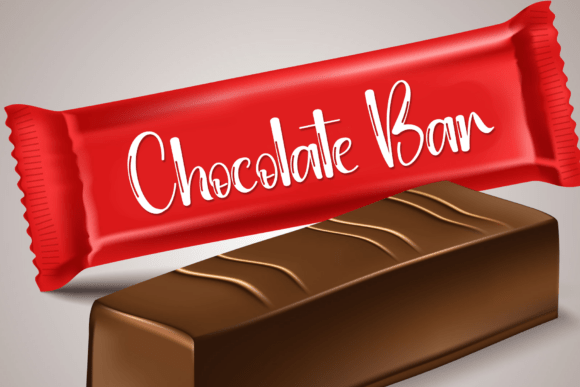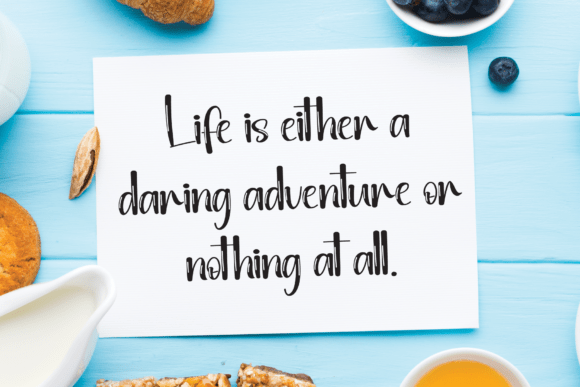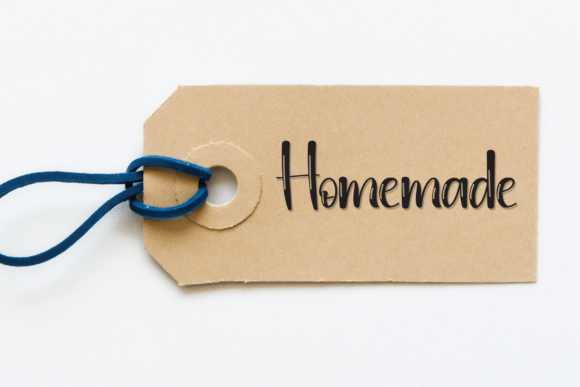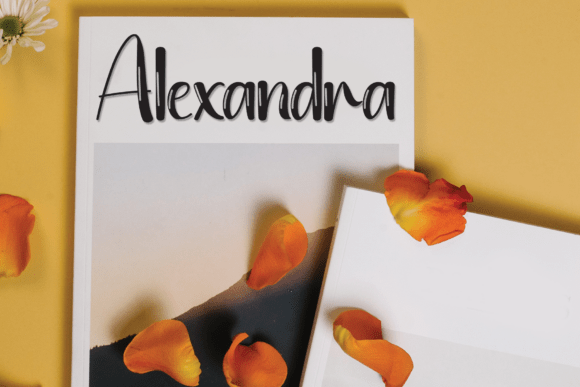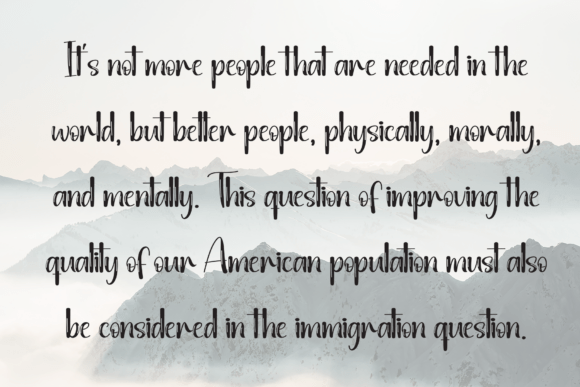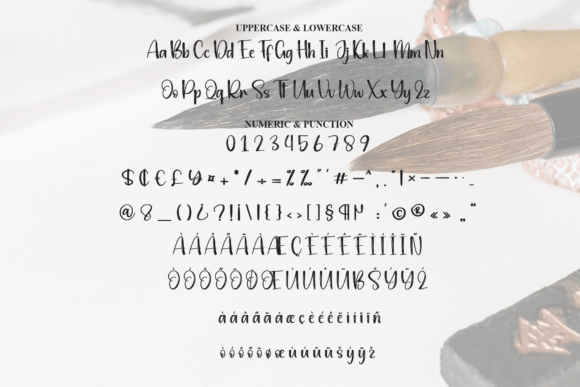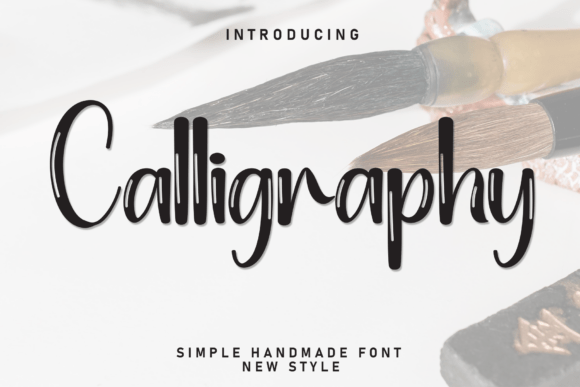
The Charm of Calligraphy Font: A Designer’s New Best Friend
I’ll never forget the time I was working on a craft project for a client who wanted a custom quote on a handmade card. I had all the design elements ready, but I was stuck on finding the perfect font. That’s when I stumbled upon Calligraphy Font, and it instantly became my go-to for all things sweet and charming.
What I Love About Calligraphy Font ✨
- ✅ Its handcrafted, casual feel makes it perfect for crafting projects, cute branding, and children’s quotes.
- ✅ The rounded, monoline strokes and slight unevenness give it a personal, friendly warmth and high legibility.
- ✅ It’s incredibly versatile and can be used for casual social media posts, handmade scripts, and more.
While Calligraphy Font is amazing, it’s not without its limitations. For instance:
- ⚠️ It might not be the best choice for formal or professional projects, as it can come across as too playful or casual.
- ⚠️ Some of the glyphs and stylistic alternates can be a bit tricky to navigate, especially for beginners.
Calligraphy Font was designed with the intention of capturing the warmth and personality of handwritten scripts. The designer wanted to create a font that felt approachable, friendly, and effortlessly handmade. With its rounded strokes and slight unevenness, Calligraphy Font is perfect for projects that require a touch of whimsy and charm.
Q: What makes Calligraphy Font so special?
A: Calligraphy Font’s unique blend of rounded strokes, monoline style, and slight unevenness gives it a personal, friendly warmth that’s hard to find in digital fonts.
Q: Is Calligraphy Font suitable for formal projects?
A: While Calligraphy Font is a beautiful font, it might not be the best choice for formal projects, as it can come across as too playful or casual. It’s better suited for creative, casual, or whimsical projects.